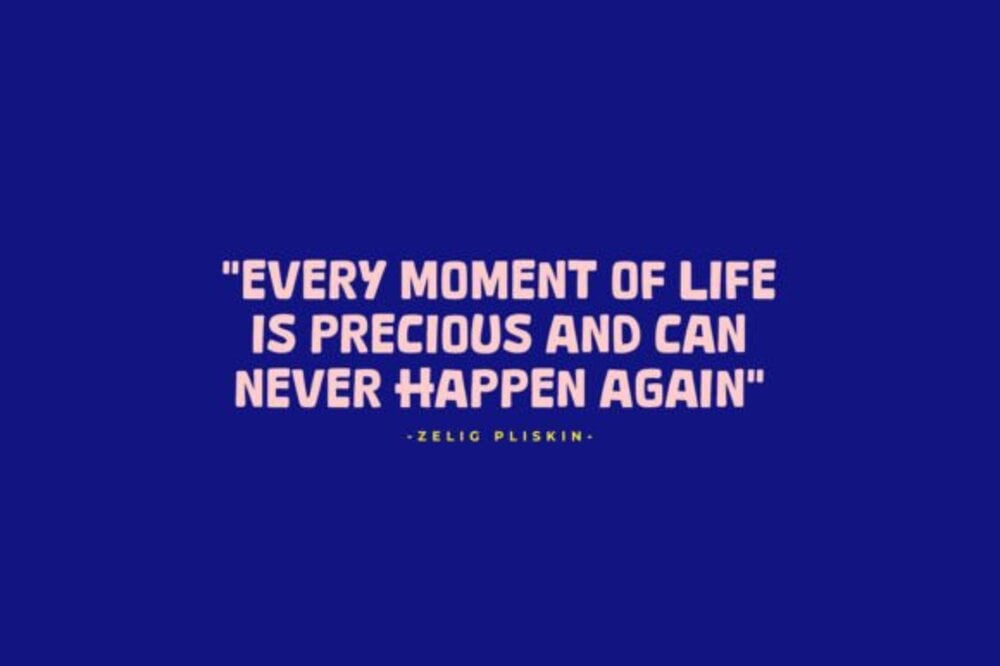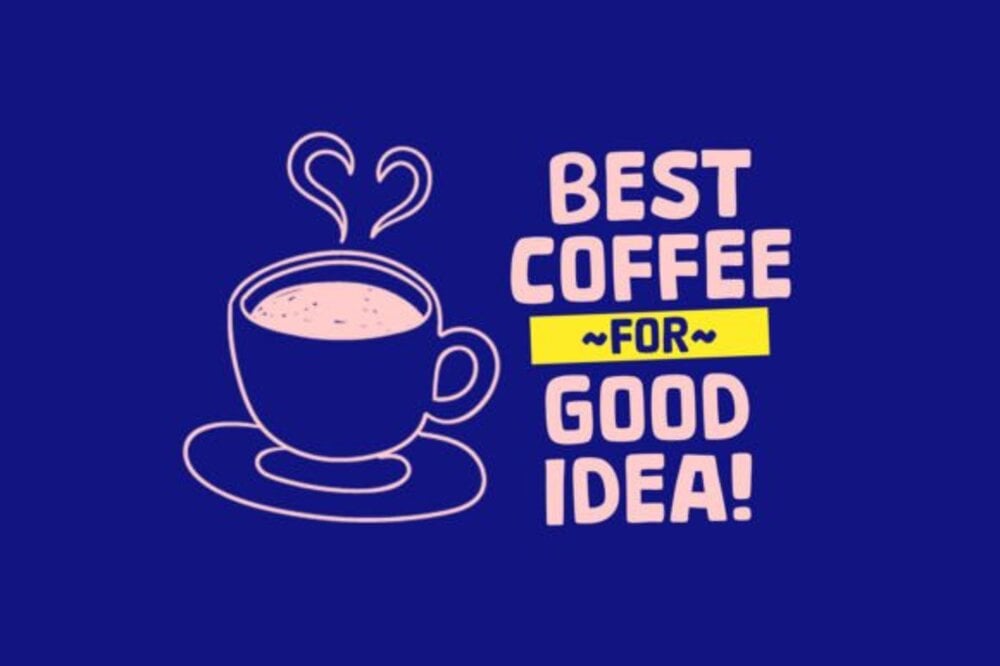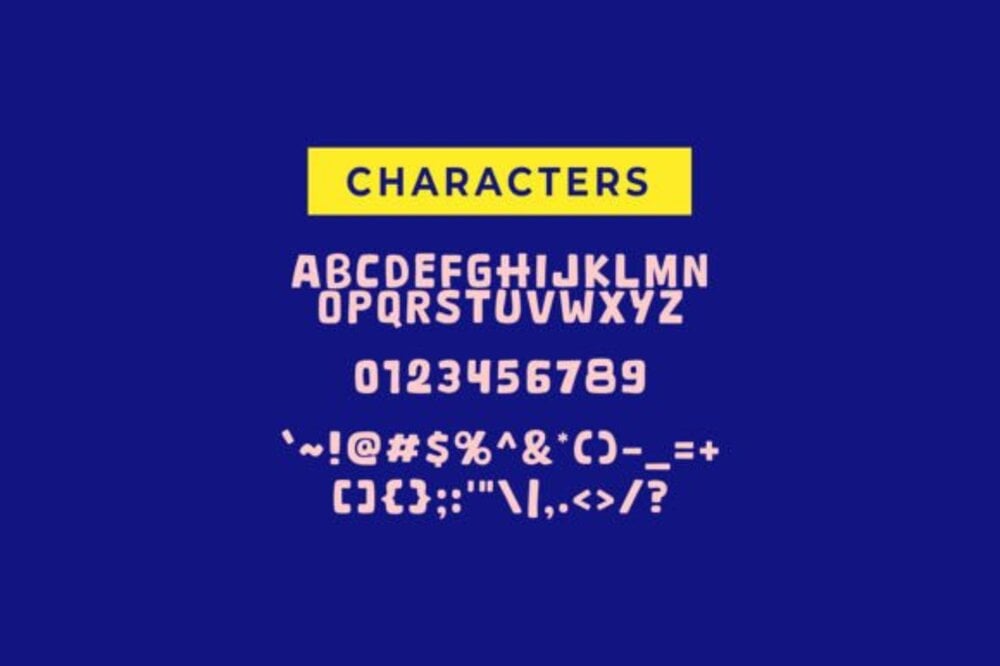
Dinofans Font
Dinofans Font is a playful and unique typeface inspired by the charm of dinosaurs and prehistoric adventures. With quirky letterforms and fun, hand-drawn details, it’s perfect for kids’ projects, book covers, party invitations, and educational materials. This one-of-a-kind font adds a whimsical touch to your designs, making them truly stand out. Dinofans Font is ideal for anyone seeking a creative and distinctive typographic solution.